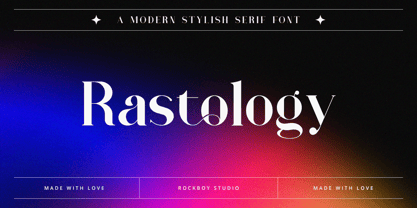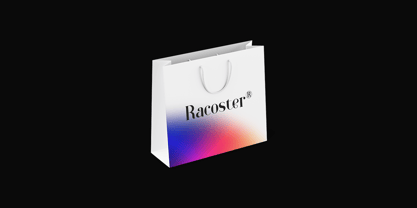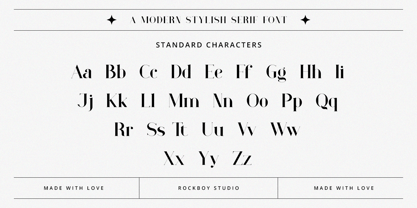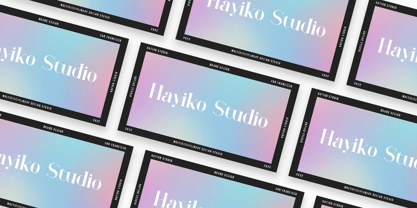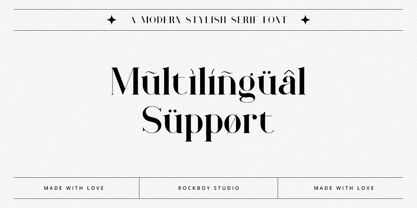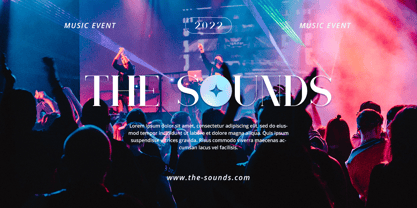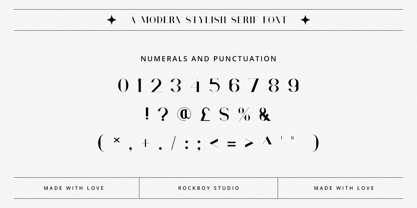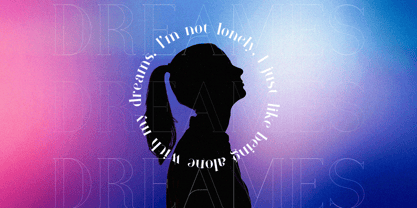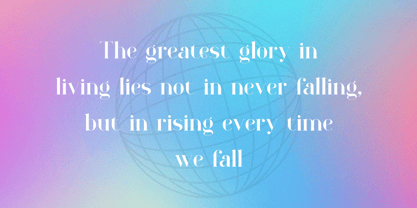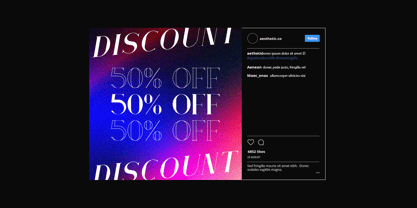
Rastology
by Rockboys Studio
The Rastology Font Family was designed by Hayinah and published by Rockboys Studio. Rastology contains 1 styles.
Rastology is a distinct, elegant, and authentic serif font. Masterfully designed to become a true favorite, this font has the potential to bring each of your creative ideas to the highest level!